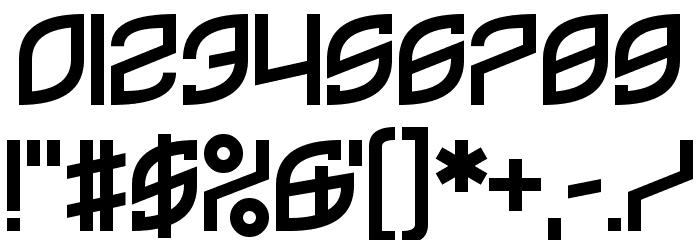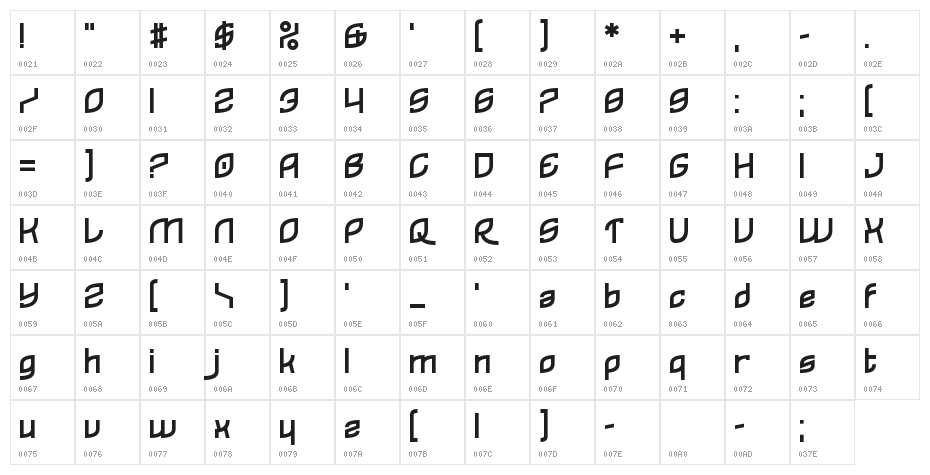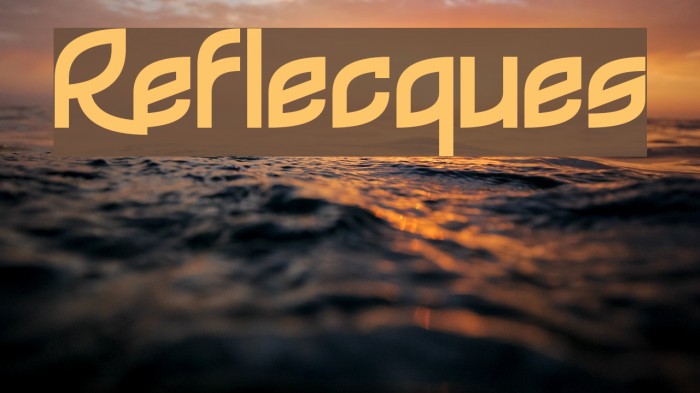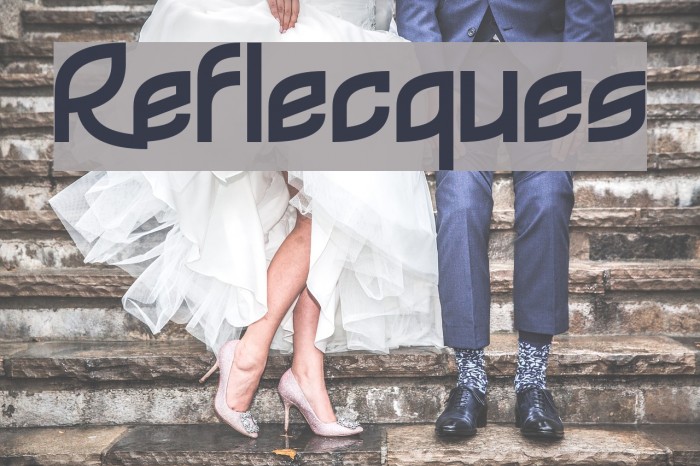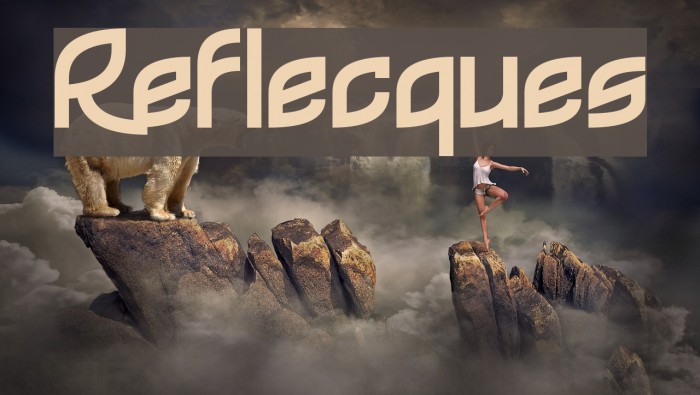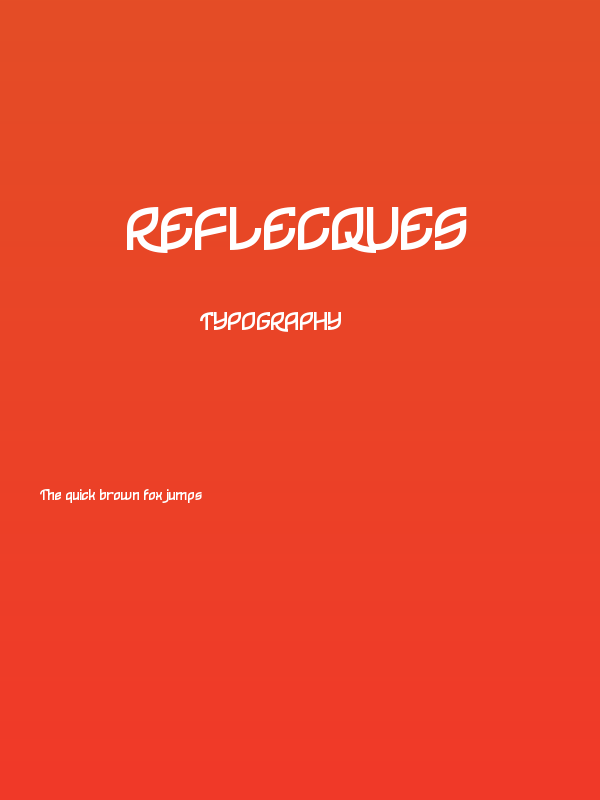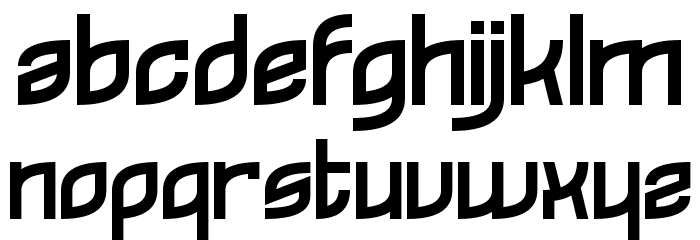
Reflecques Font
Reflecques Description
This font features a modern and futuristic design with a unique geometric structure. The characters are crafted with a distinct angular style, giving them a dynamic and forward-thinking appearance. The uppercase letters are bold and assertive, while the lowercase letters maintain a consistent flow with curved elements that add a touch of elegance. The numerals and special characters are designed to complement the overall aesthetic, making the font versatile for various applications. The clean lines and sharp edges contribute to its contemporary feel, making it suitable for projects that require a modern and innovative look.
| Proposed Projects | Ideal for technology branding, futuristic posters, and innovative product packaging. |